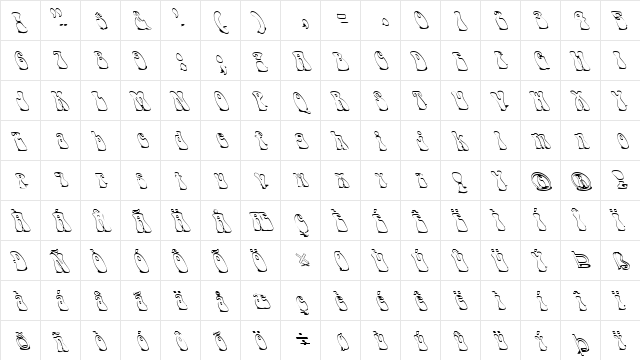
FZ JAZZY 14 SHADOW LEFTY Normal
Design Context for FZ JAZZY 14 SHADOW LEFTY Typeface
FZ JAZZY 14 SHADOW LEFTY brings ornamental detail and strong personality to headlines and identities, where visual impact matters more than quiet functionality.
Font Pairing: Pair with a clean neutral sans-serif for body copy to let FZ JAZZY 14 SHADOW LEFTY's character lead without overwhelming the composition.
Pro Tip: Use FZ JAZZY 14 SHADOW LEFTY exclusively at display sizes — it was designed to be seen, not read at length. Let a neutral companion handle body copy.